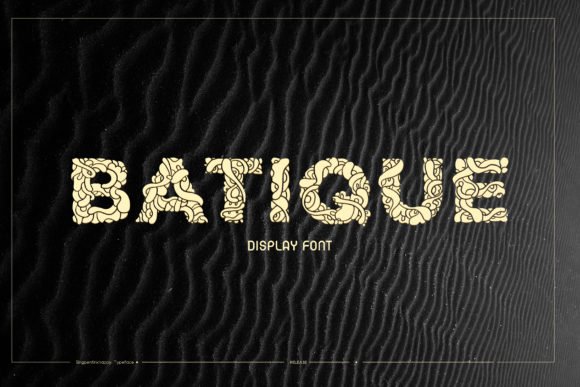
Unlock Your Creative Potential with Batique Font
Have you ever had one of those moments where a burst of inspiration hits you, and you can’t wait to bring your idea to life? That’s exactly what happened to me when I stumbled upon the incredible Batique Font. Its bold, chunky letters screamed ‘attention-grabber’ to me, and I knew I had to learn more.
Batikue Font is a game-changing display font designed to make your creative ideas stand out. With its unique style, the possibilities are endless – from stunning headlines to eye-catching graphics. As a designer, you understand the importance of having the right tools at your disposal to elevate your work. That’s where Batique Font comes in – it’s a valuable addition to any designer’s toolkit, waiting to help you unleash your full creative potential.
Whether you’re a seasoned pro or just starting out, Batique Font is sure to spark your imagination and take your designs to the next level. So, what are you waiting for? Dive in and discover the limitless possibilities of Batique Font!
Batique Font Key Features
- Font Family: Batique Font is a unique, hand-drawn font that comes in a variety of styles and weights.
- Size: Batique Font is available in a range of sizes, from 8pt to 72pt, allowing for versatility in design applications.
- Resolution: Batique Font is designed to be high-resolution, making it suitable for use in print and digital applications at 300 DPI or higher.
- Unique Characteristics: Batique Font features a distinctive, hand-crafted look with subtle texture and imperfections, giving it a unique and artistic feel.
- Character Set: Batique Font includes a comprehensive character set, including Latin, Cyrillic, and Greek alphabets, as well as punctuation and symbols.
Design Review: Batique Font
At first glance, Batique Font ✨ looks like a promising choice for designers seeking a unique, handmade aesthetic. The font’s distressed texture and subtle imperfections create a charming, vintage vibe that’s reminiscent of traditional craftsmanship.
The Batique Font’s strengths include:
- ✨ Distinctive texture that adds character to designs
- ✨ Wide range of weights and styles to suit various design needs
- ✨ Excellent for use in branding, packaging, and other applications where a vintage feel is desired
However, the font also has some limitations:
- ⚠️ May not be suitable for body text due to its decorative nature
- ⚠️ Limited legibility at smaller font sizes, which can make it difficult to read
- ⚠️ May require adjustments to line spacing and kerning to maintain readability
Overall, I think Batique Font is a great choice for designers who want to add a touch of whimsy and personality to their projects. While it may not be the best fit for every design, it’s definitely worth considering for the right project. Just be mindful of its limitations and use it judiciously to get the best results.
The Batique font is ideal for creating a vintage or bohemian aesthetic in your designs. Use it for:
Travel and adventure branding
Home decor and textile design
Quirky and eclectic packaging design
To get the most out of the Batique font, experiment with different font sizes and styles to create a unique and eye-catching look. You can also pair it with other fonts to add contrast and interest.